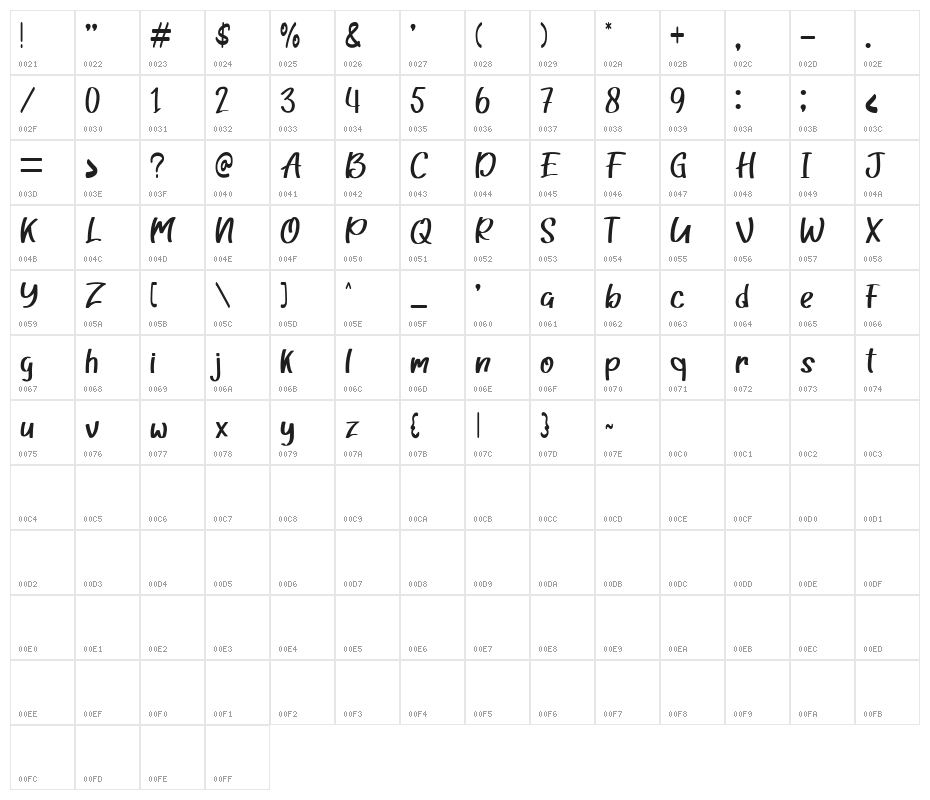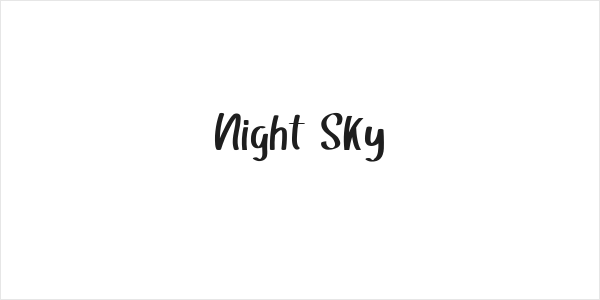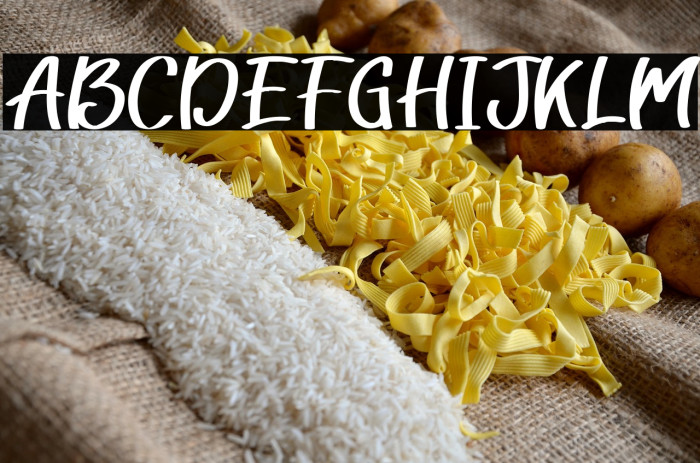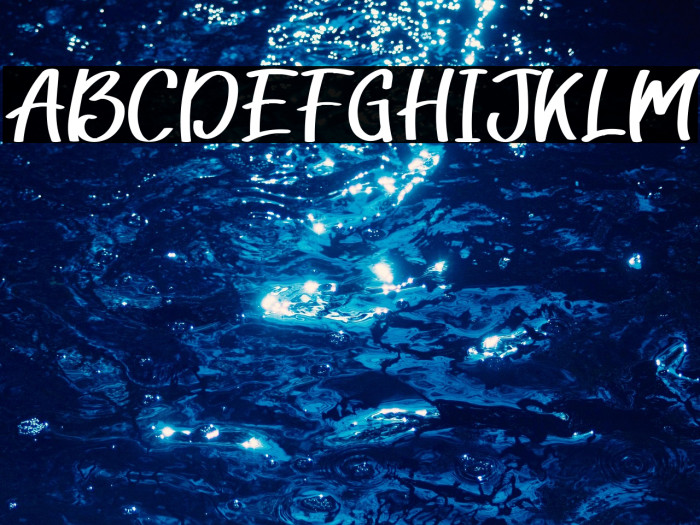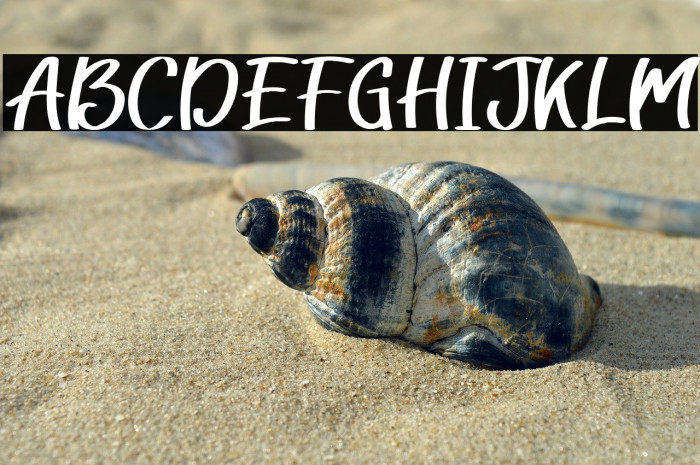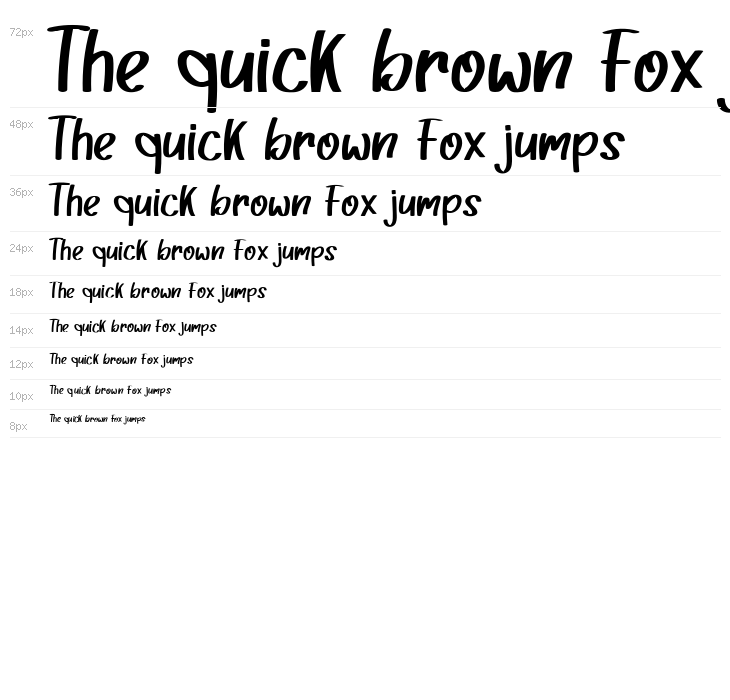
Night Sky Font
Night Sky Description
This font features a playful and energetic script style with a handwritten appearance. The characters are bold and slightly slanted, giving a sense of movement and fluidity. The uppercase letters are distinct with a mix of sharp and rounded edges, while the lowercase letters maintain a consistent flow. The numbers are clear and easy to read, matching the overall style. Special characters are creatively designed, adding to the font's charm. The font's informal and lively nature makes it suitable for projects that require a personal touch.